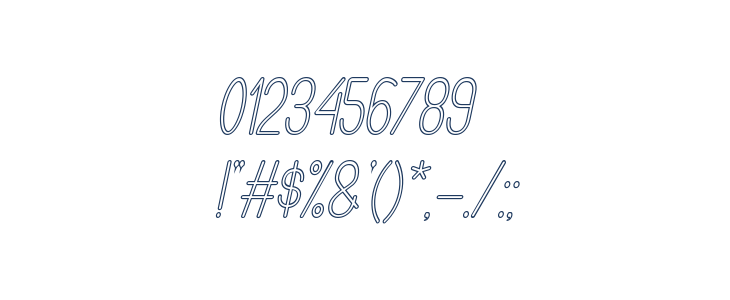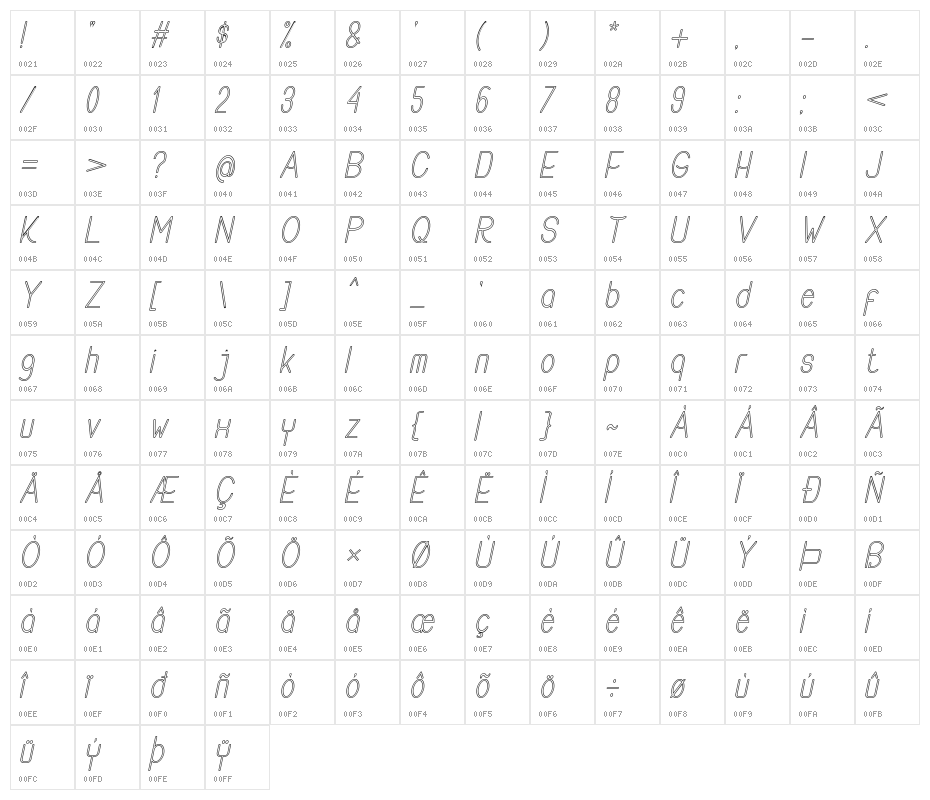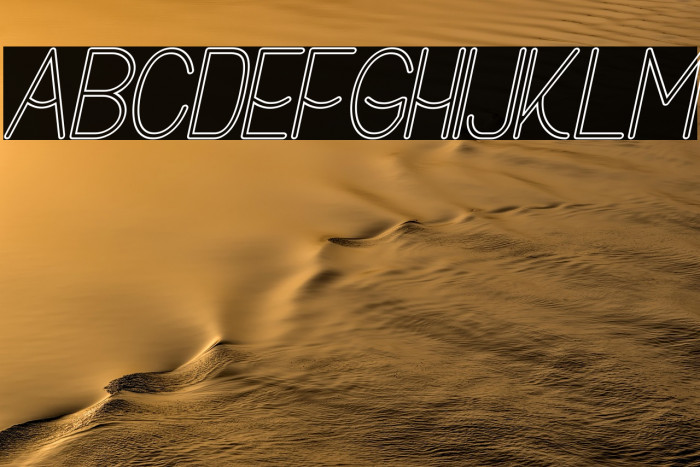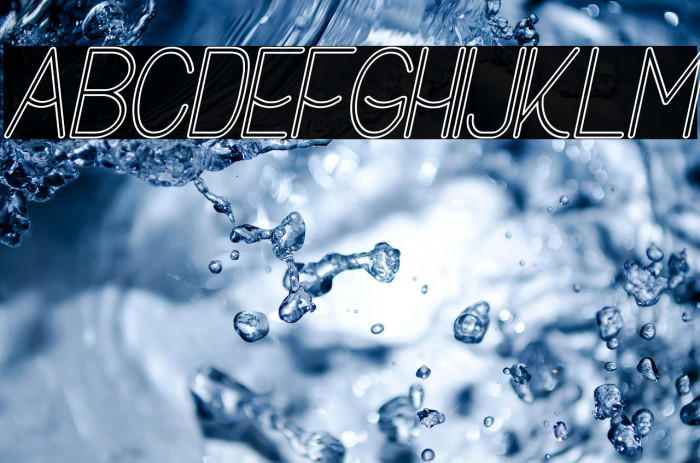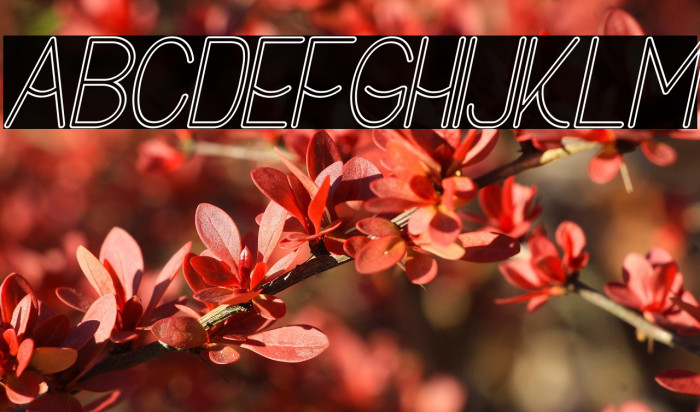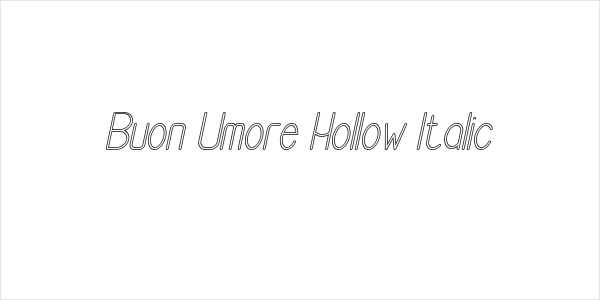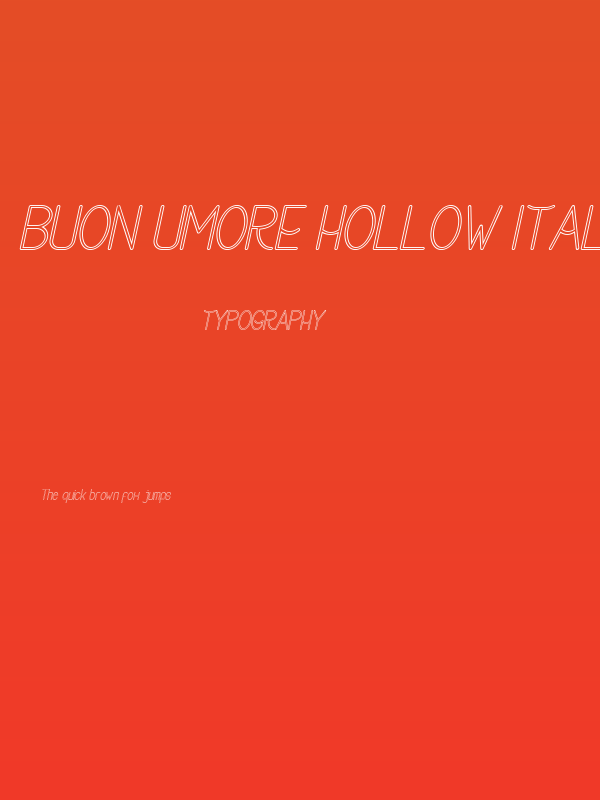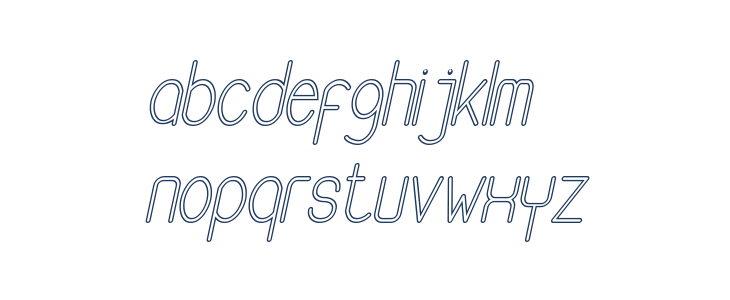
Buon Umore Hollow Italic Font
Buon Umore Hollow Italic Description
This font features a unique hollow design with an italic slant, giving it a dynamic and modern appearance. The characters are outlined, creating a sense of depth and dimension. The uppercase and lowercase letters maintain a consistent style, with smooth curves and sharp angles that enhance readability. Numbers and special characters are designed to match the overall aesthetic, making this font versatile for various applications. Its hollow nature allows for creative use of color and background, making it stand out in digital and print media.
| Proposed Projects | Ideal for creative projects such as posters, digital artwork, branding, and headlines where a modern and eye-catching font is needed. |